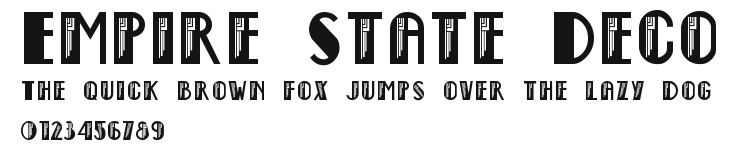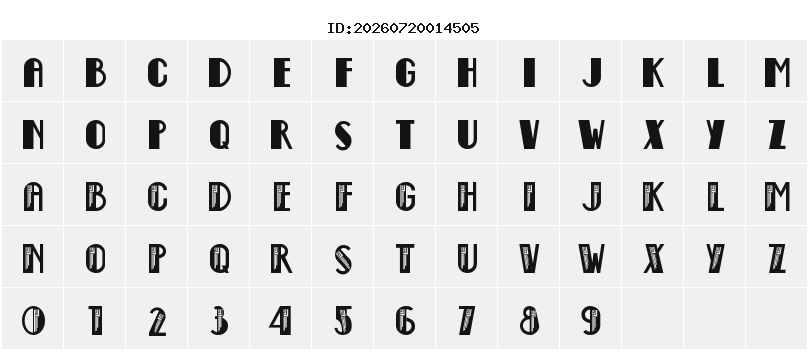
• Font Name: Empire State Deco
About Empire State Deco.ttf
Empire State Deco.ttf is a modern, elegant sans-serif font designed for ultimate readability and visual harmony. Perfect for branding, headlines, web design, and print materials.